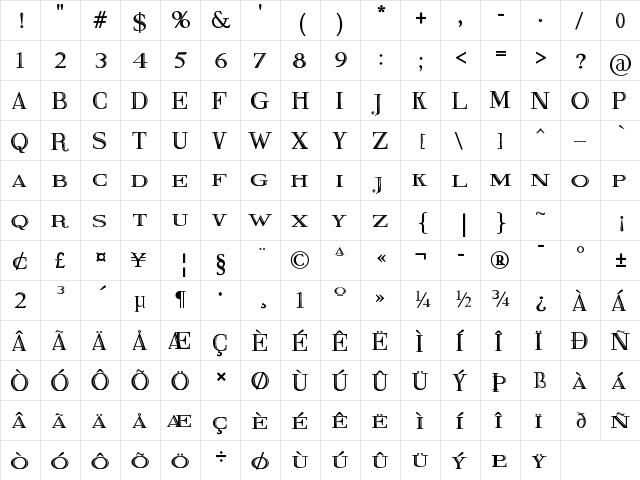
Fine Blackboard Regular
| Foundry | Galdino Otten |
Design Context for Fine Blackboard Typeface
Fine Blackboard offers clean, dependable letterforms without strong stylistic allegiance, making it a practical choice for designers who need flexibility.
Pro Tip: Pair Fine Blackboard with a font of contrasting weight or personality to build a more expressive typographic hierarchy.